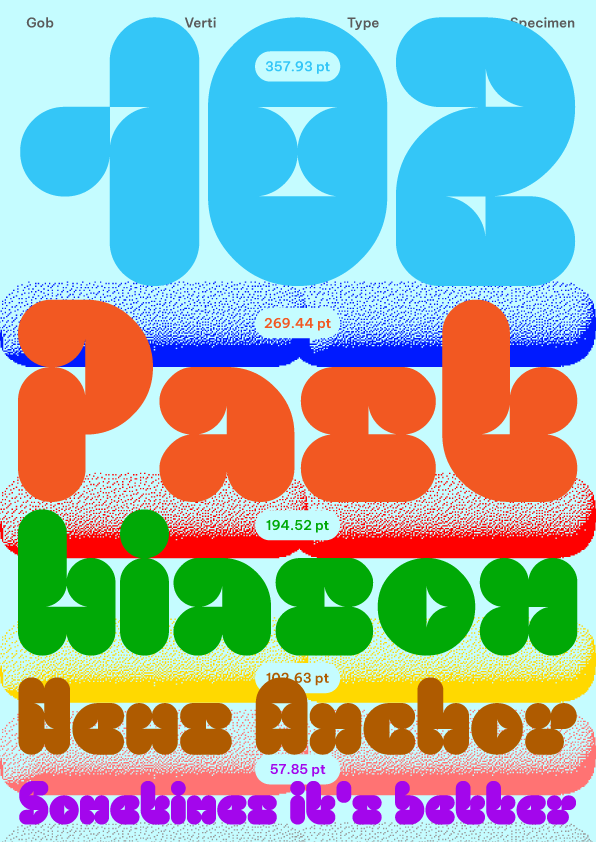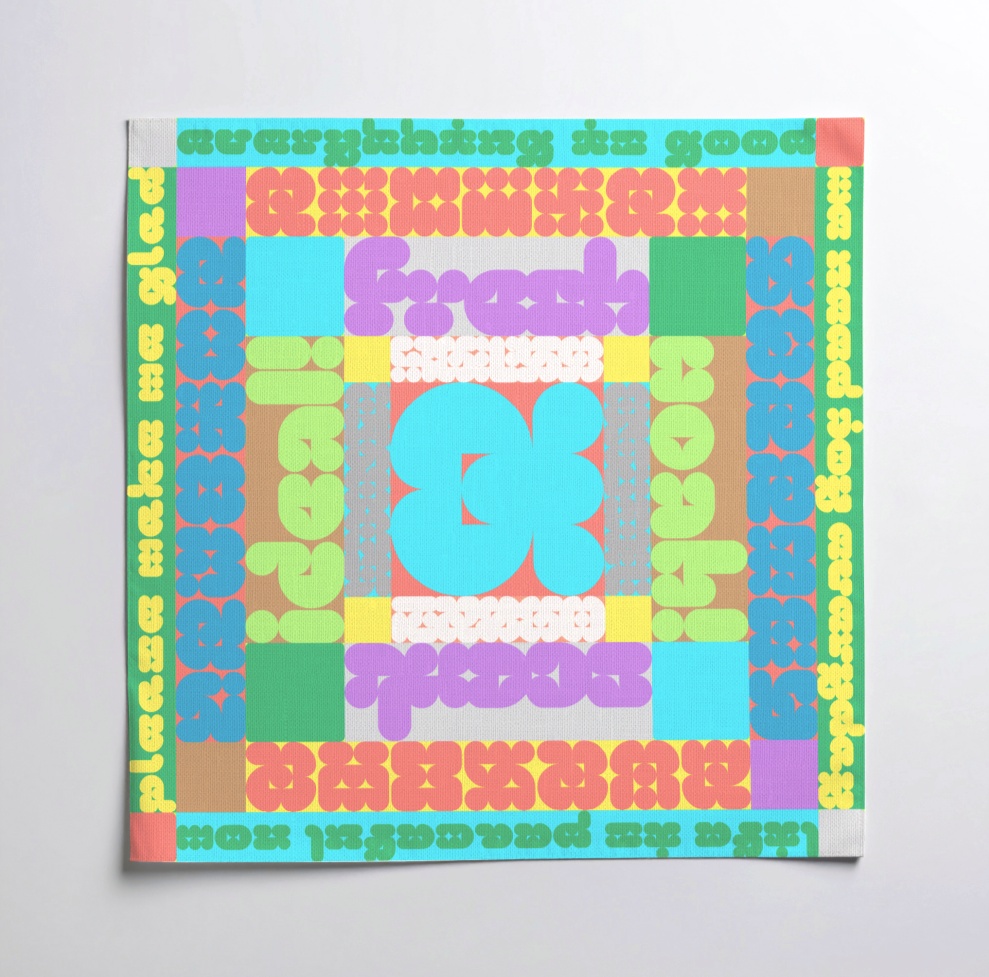
• Gob (a portmanteau of ‘gastric’ and ‘blob’) is a playful display font family with knobbly silhouettes, not unlike a digestive tract. What began as an inverse typographic experiment evolved into multiple styles (Verti, Hori, and Uni with a set of alternates) through stretching, squeezing, and reworking its stroke segments. Later, a FontStruct colour font competition pushed Gob further, spawning the pixelated, shadow-layered Pixi variation.